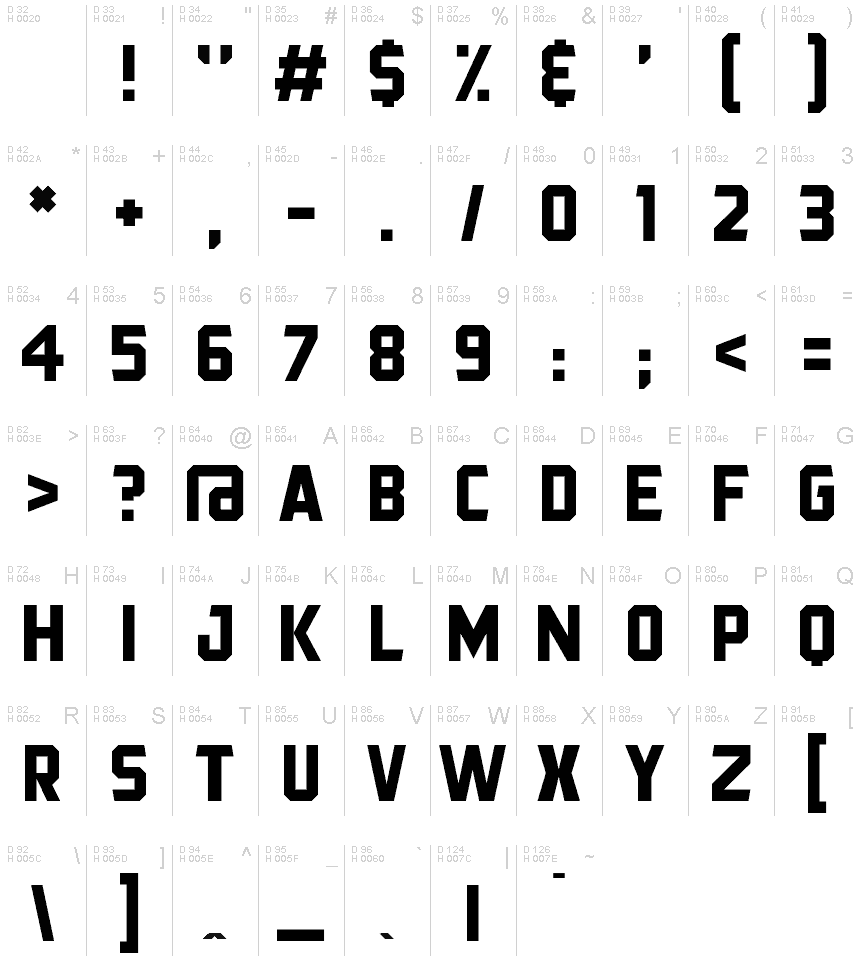
Prezident
Prezident is a bold, condensed font that exudes a commanding presence. Designed by imagex, this typeface boasts a striking architectural aesthetic, with sharp edges and geometric forms that convey a sense of authority and power. The condensed width lends a sense of efficiency and focus, making Prezident an ideal choice for headlines, branding, and editorial design where a strong, impactful visual presence is desired.
Its versatility extends beyond traditional print applications, as Prezident's distinctive style could also be effectively leveraged in digital interfaces, signage, and various other visual communication contexts. The font's bold, confident personality makes it a compelling option for projects requiring a sense of gravitas and decisiveness.